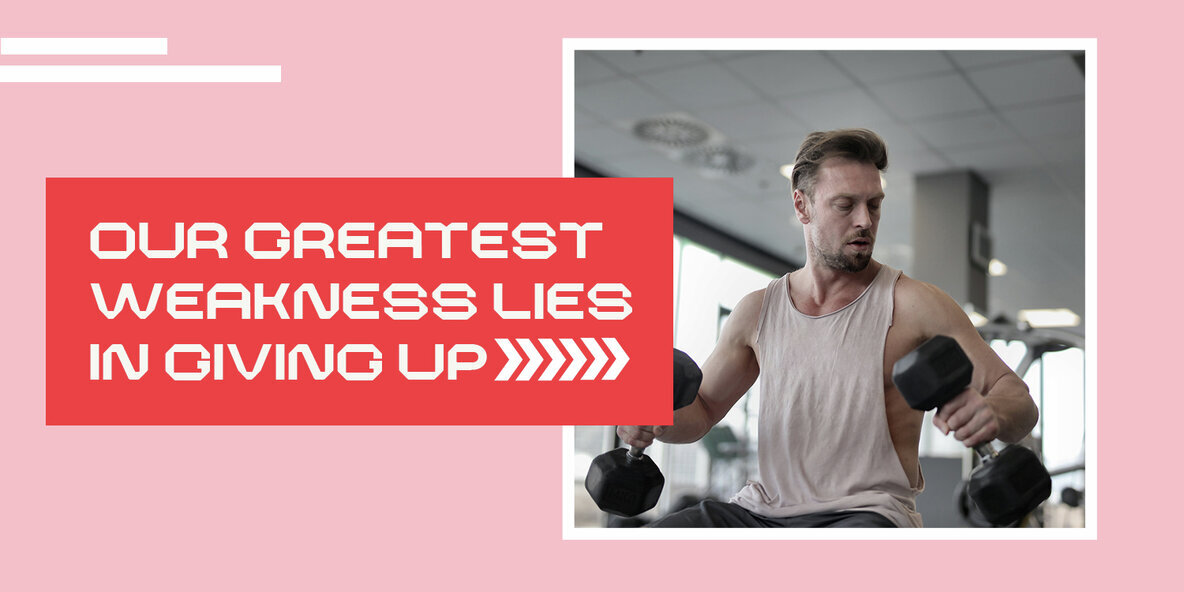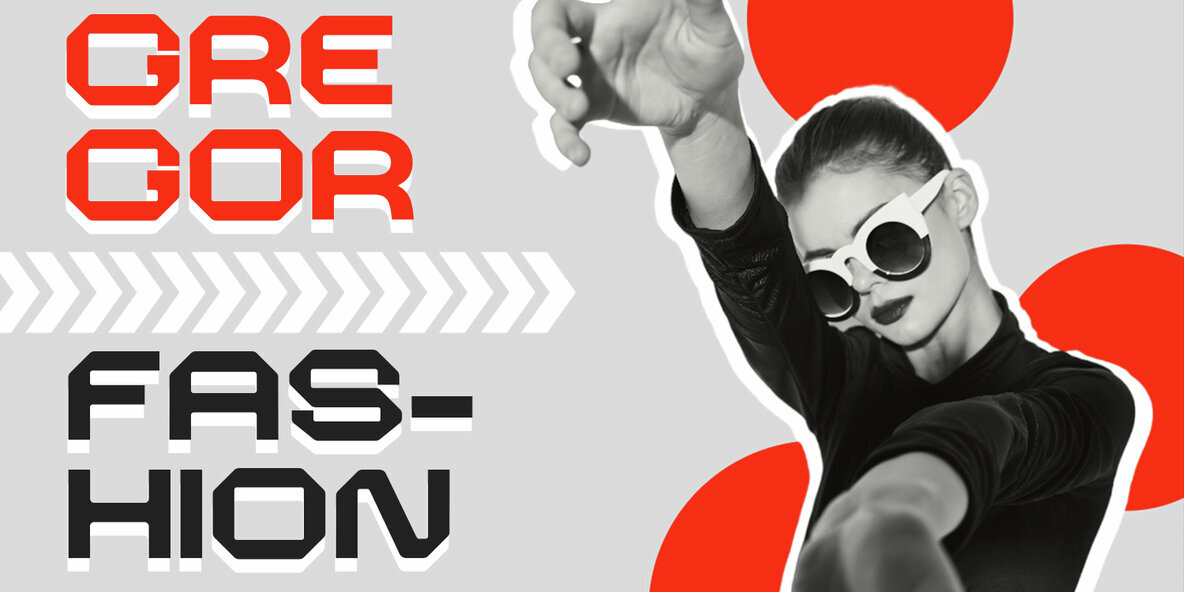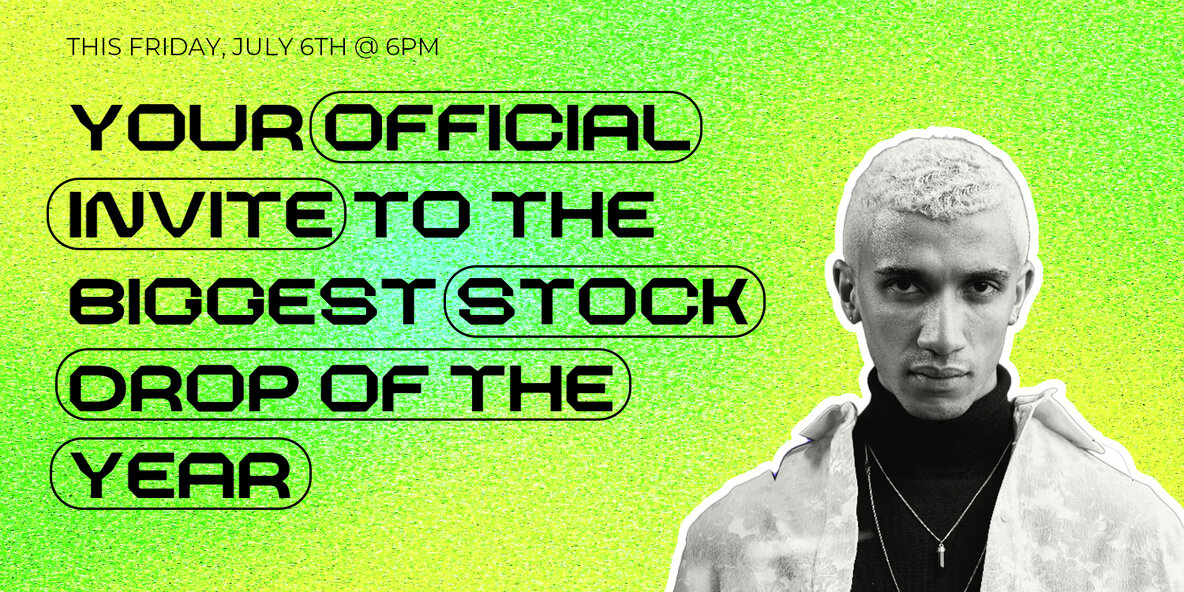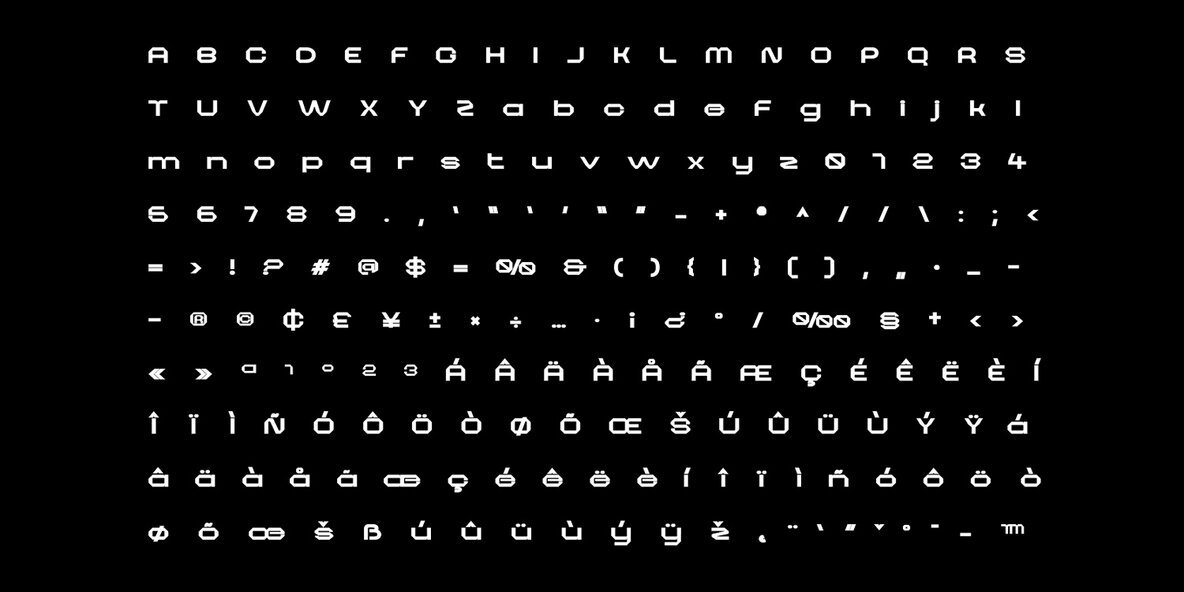
Flockin Display: A Modern Decorative Typeface
The Flockin Display Typeface is crafted by FoxType Co. to captivate audiences and enhance your branding efforts. This decorative typeface boasts meticulously designed details, ensuring it meets both corporate demands and a multitude of creative projects.
• Branding – Perfect for creating distinctive logos and brand identities.
• Headlines – Ideal for attention-grabbing headlines and titles.
• Display – Suited for use in posters, digital ads, and more.
Flockin is a continually evolving project, designed to stand the test of time across various applications.